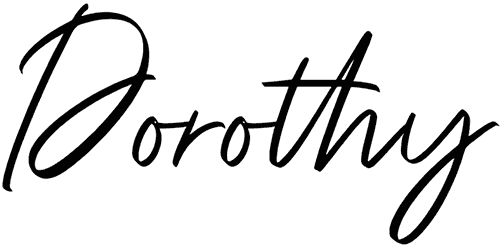
Dorothy Font
With a lovely and casual style, your project will catch a lot of attention, and this handwritten font will provide a nice item. Dorothy possesses smooth and realistic lettering that makes it a perfect choice for formal or informal designs. As a calligraphy font, the Dorothy font doesn’t support most punctuation marks, but it will continue to work as a catchy pickup for logos, planners, flyers, and so forth.